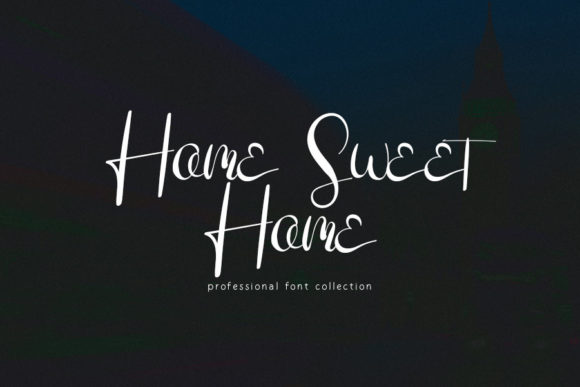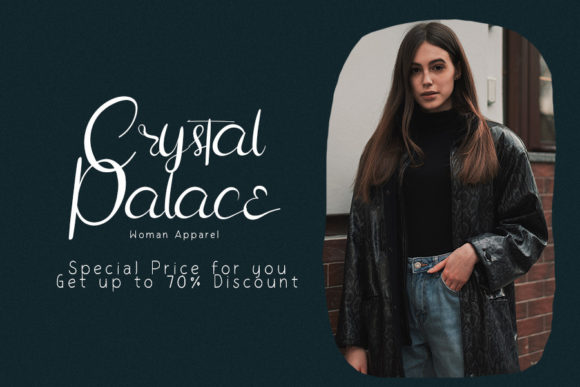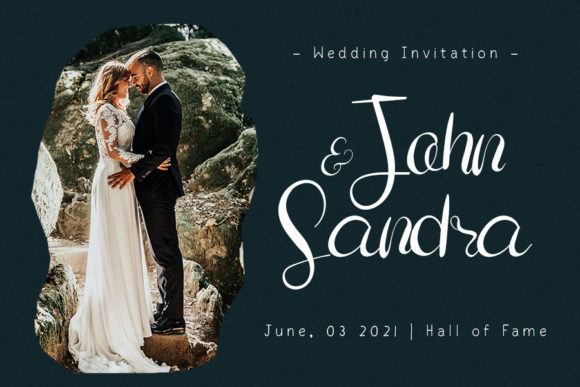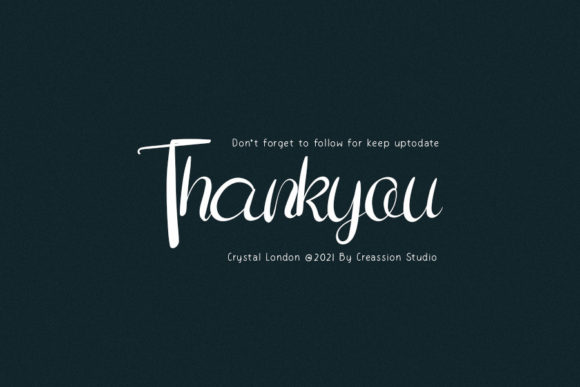
Introducing Crystal London Font: Elevate Your Designs with Luxury and Elegance
Are you a designer or crafter looking for a font that exudes luxury and sophistication? Look no further than Crystal London Font. This stunning handwriting font is perfect for adding a touch of elegance to your designs, making it ideal for business cards, greeting cards, wedding cards, and any other project that requires a high-end finish.
What Makes Crystal London Font So Special?
Crystal London Font is a very charming and luxurious handwriting font that is sure to impress. Its unique and flowing script style is reminiscent of high-end calligraphy, making it perfect for designs that require a level of sophistication and refinement. Whether you’re creating a business card for a luxury brand or a wedding card for a special couple, Crystal London Font is sure to elevate your design to the next level.
Key Features of Crystal London Font
- Unique and Luxurious Style: Crystal London Font boasts a distinctive and opulent style that is sure to make your designs stand out.
- Handwritten with Precision: Each letter has been carefully crafted by hand to ensure a high level of precision and elegance.
- Perfect for High-End Designs: Whether you’re working on a business card, greeting card, or wedding card, Crystal London Font is the perfect choice for designs that require a luxurious finish.
- Easily Readable: Despite its ornate style, Crystal London Font is surprisingly easy to read, making it perfect for both print and digital designs.
Uses for Crystal London Font
Crystal London Font is incredibly versatile and can be used for a wide range of design projects. Here are just a few ideas to get you started:
- Business Cards: Add a touch of luxury to your business cards with Crystal London Font, perfect for high-end brands and professionals.
- Greeting Cards: Create beautiful and elegant greeting cards for special occasions, such as birthdays, anniversaries, and holidays.
- Wedding Cards: Make your wedding cards truly unforgettable with Crystal London Font, perfect for formal and informal wedding designs.
- Stationery and Invitations: Elevate your stationery and invitations with Crystal London Font, perfect for formal events and luxury brands.
Tips for Using Crystal London Font
To get the most out of Crystal London Font, here are a few tips to keep in mind:
- Use it Sparingly: While Crystal London Font is stunning, it can be overwhelming if used too much. Use it sparingly to add a touch of elegance to your designs.
- Pair it with Simple Backgrounds: Let Crystal London Font be the star of the show by pairing it with simple backgrounds that won’t compete for attention.
- Experiment with Colors: Try pairing Crystal London Font with different colors to create unique and eye-catching designs.
In conclusion, Crystal London Font is a truly special font that can elevate your designs to new heights. Its luxurious and elegant style makes it perfect for high-end designs, and its versatility means it can be used for a wide range of projects. Whether you’re a designer or crafter, Crystal London Font is sure to become a favorite in your collection.